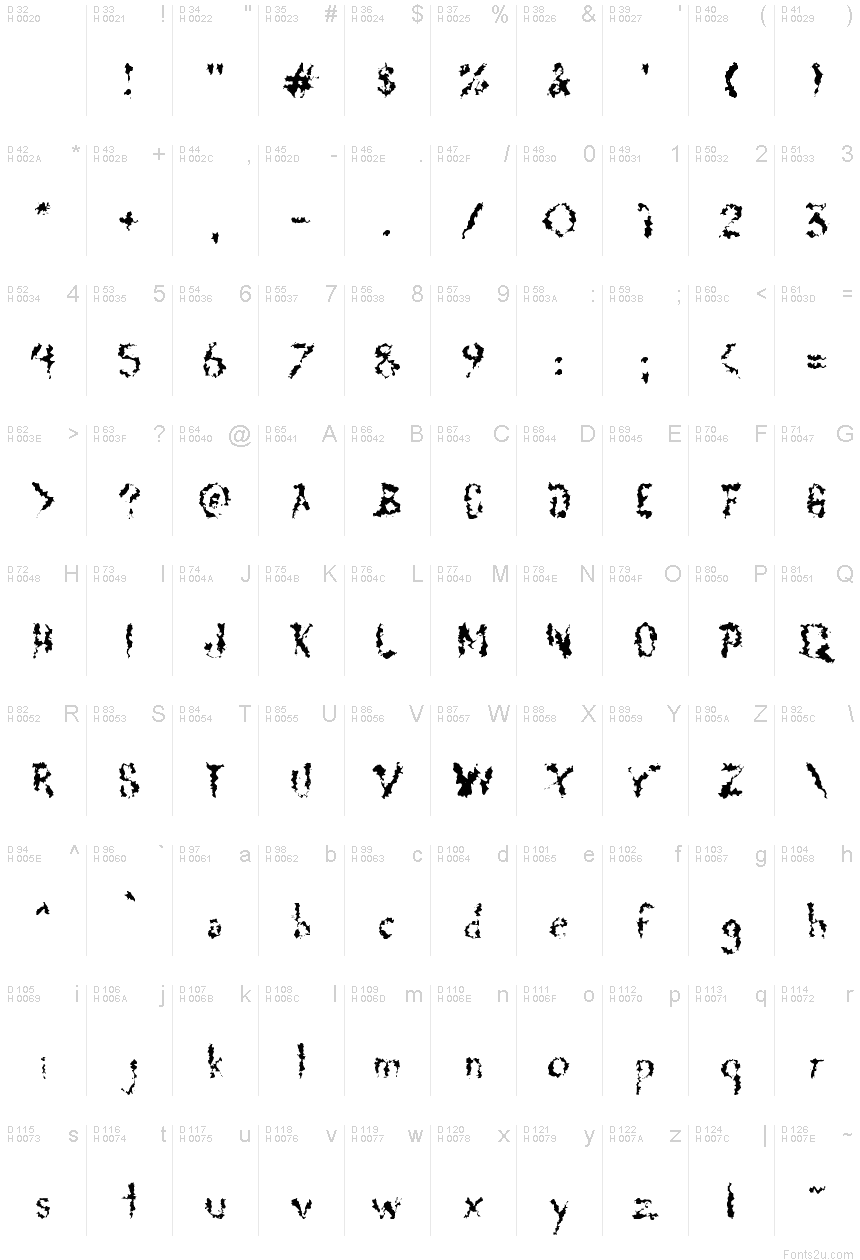
DeadGrit
Dead Grit font by Astigmatic One Eye is a free distorted display typeface that looks like it’s been dragged through rust, ash, and static. Each letter feels eroded and splintered, with jagged edges and uneven inky clumps that make words look like they’re decaying on the page. There’s a raw, chaotic energy to the texture that instantly throws your design into horror, grindhouse, or post-apocalyptic territory.
Using Dead Grit, your titles don’t just speak-they growl. This free font works beautifully for horror posters, metal or punk album covers, escape room branding, haunted attraction signage, grunge zines, and eerie game logos. Keep it large so the gritty details stay legible, and pair it with a plain, clean sans serif for body copy to let Dead Grit handle the drama while the supporting text stays readable.